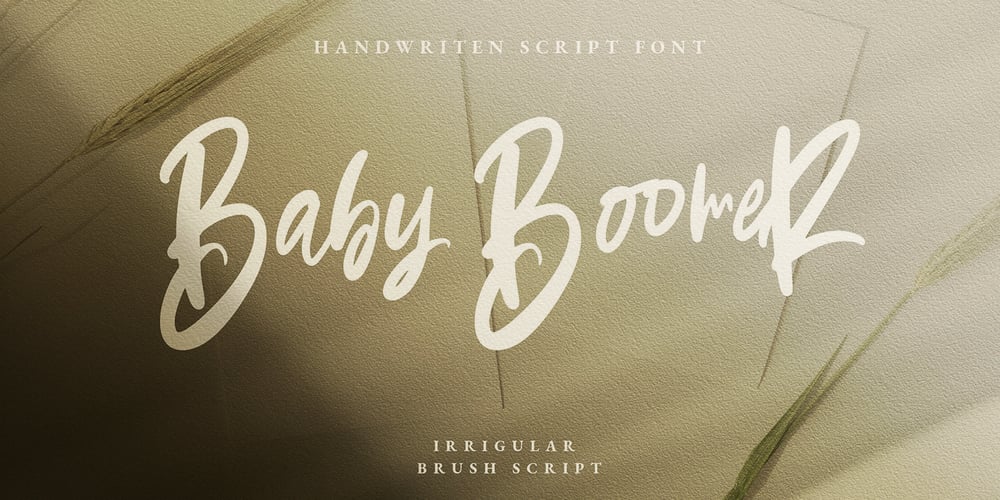
Baby Boomer Font Family was designed by Hendra Maulia and published by Dirtyline Studio. Baby Boomer contains 1 styles and family package options. Baby Boomer is a new fresh and modern script with a calligraphy style and a dancing baseline. So beautiful on invitation like greeting cards, branding materials, business cards, quotes, posters, and more. Baby Boomer comes with Alternatives and Ligatures. The alternative characters were divided into several OpenType features such as Stylistic Sets, Stylistic Alternates and Ligature. The OpenType features can be accessed by using OpenType savvy programs such as Adobe Illustrator, Adobe InDesign, Adobe Photoshop Corel Draw X version, And Microsoft Word. And this Font has given PUA unicode (specially coded fonts) so that all the alternate characters can easily be accessed in full by a craftsman or designer.